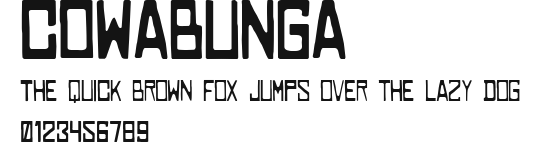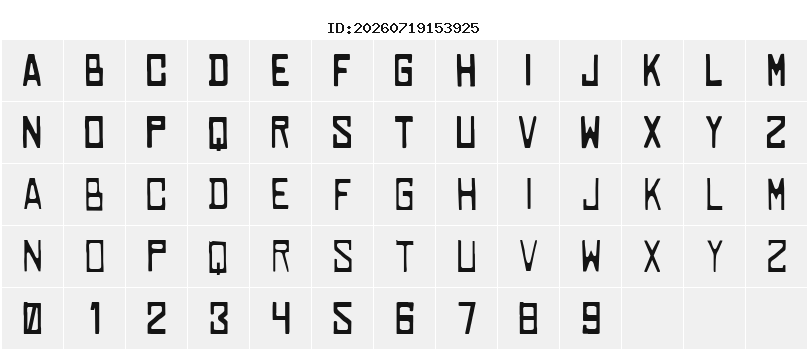
• Font Name: COWABUNGA
• Designer: SpideRaY
About COWABUNGA.ttf
COWABUNGA.ttf is a modern, elegant sans-serif font designed for ultimate readability and visual harmony. Perfect for branding, headlines, web design, and print materials.